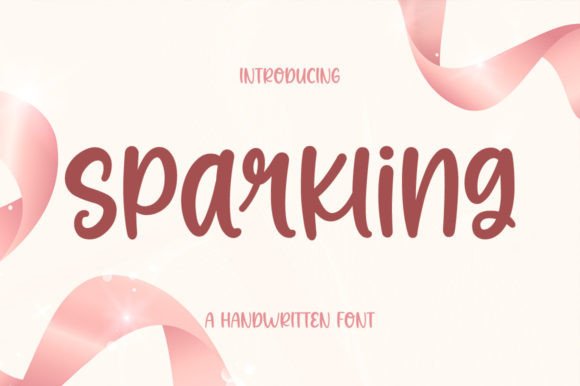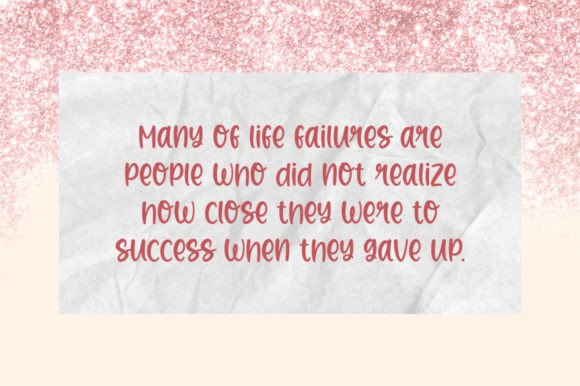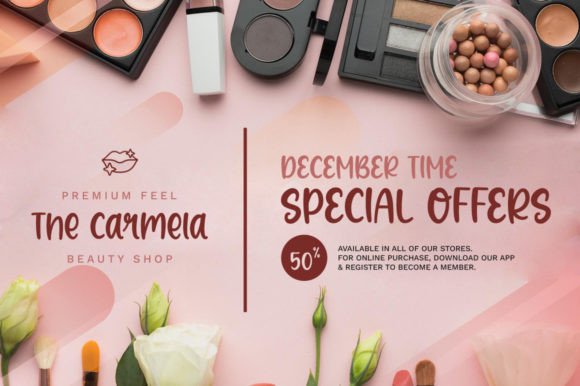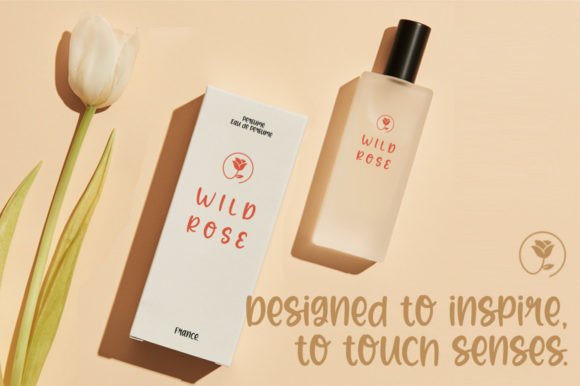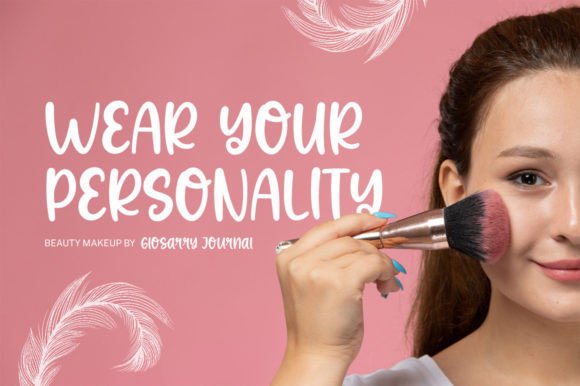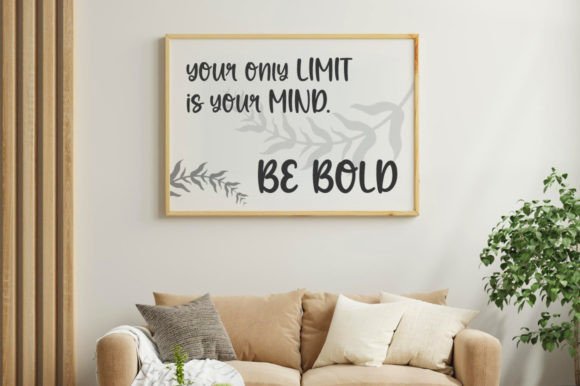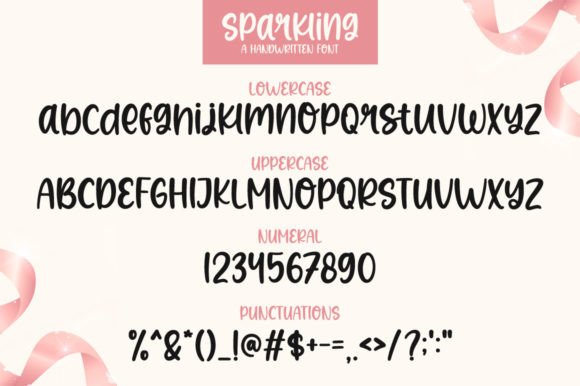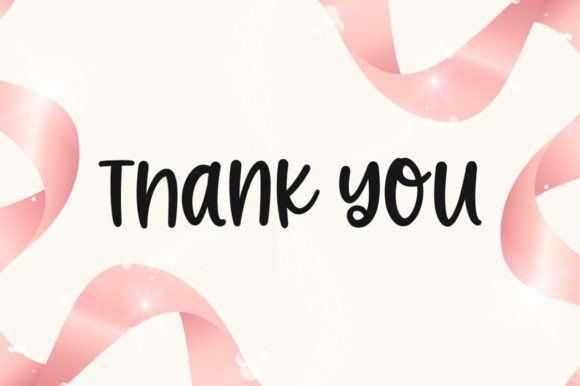
Sparkling Font
About Sparkling Font
Sparkling is a delicate and simple-lettered handwritten font, perfect for all the chalkboard quotes and teaching materials you wish to create! Its authentic look will add a personal and realistic feel to your designs.